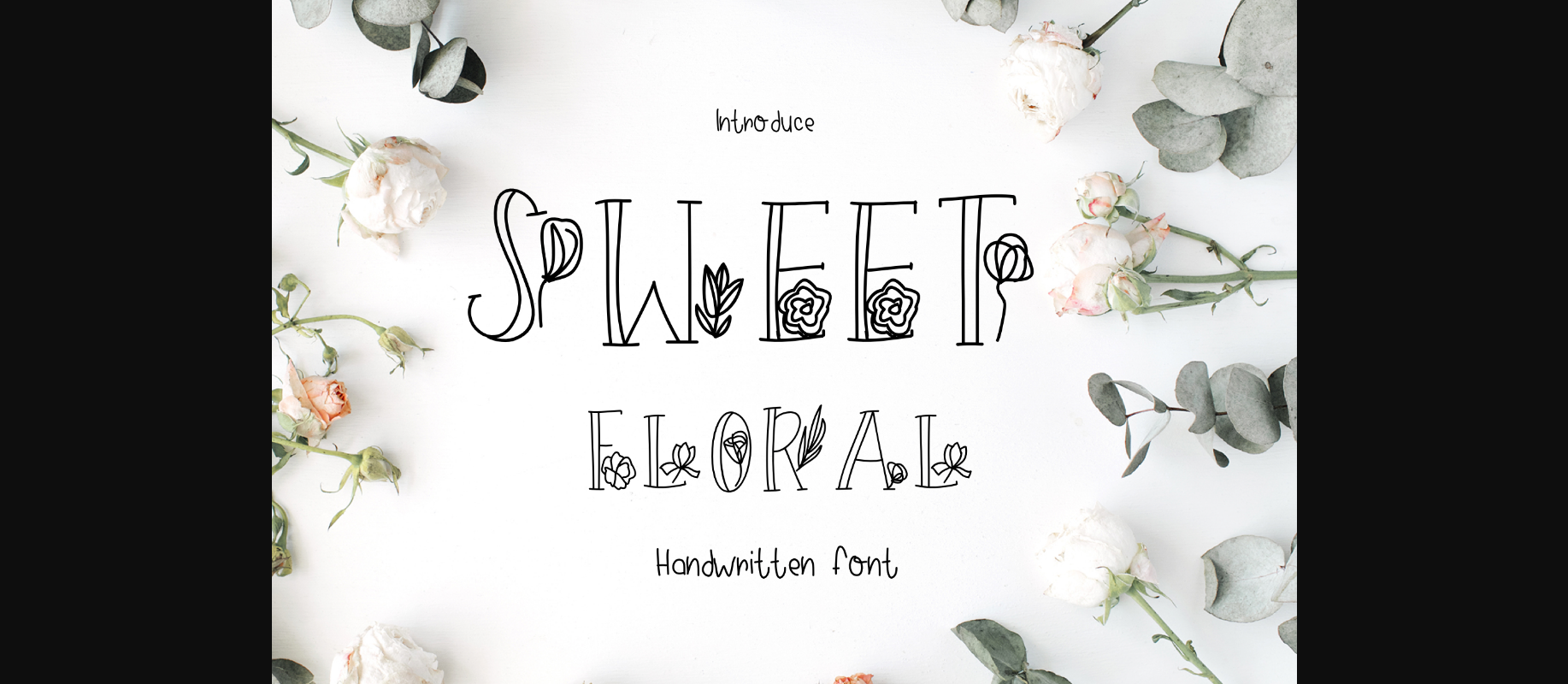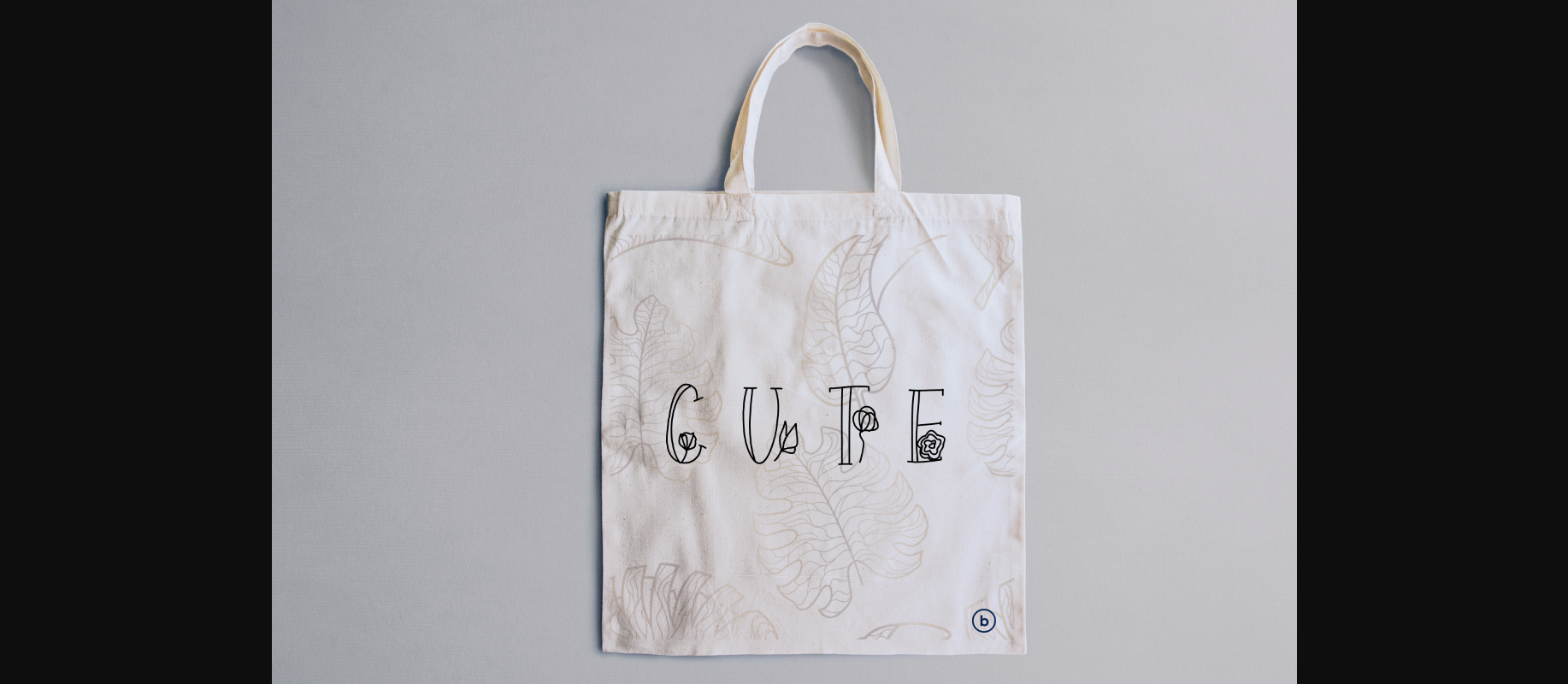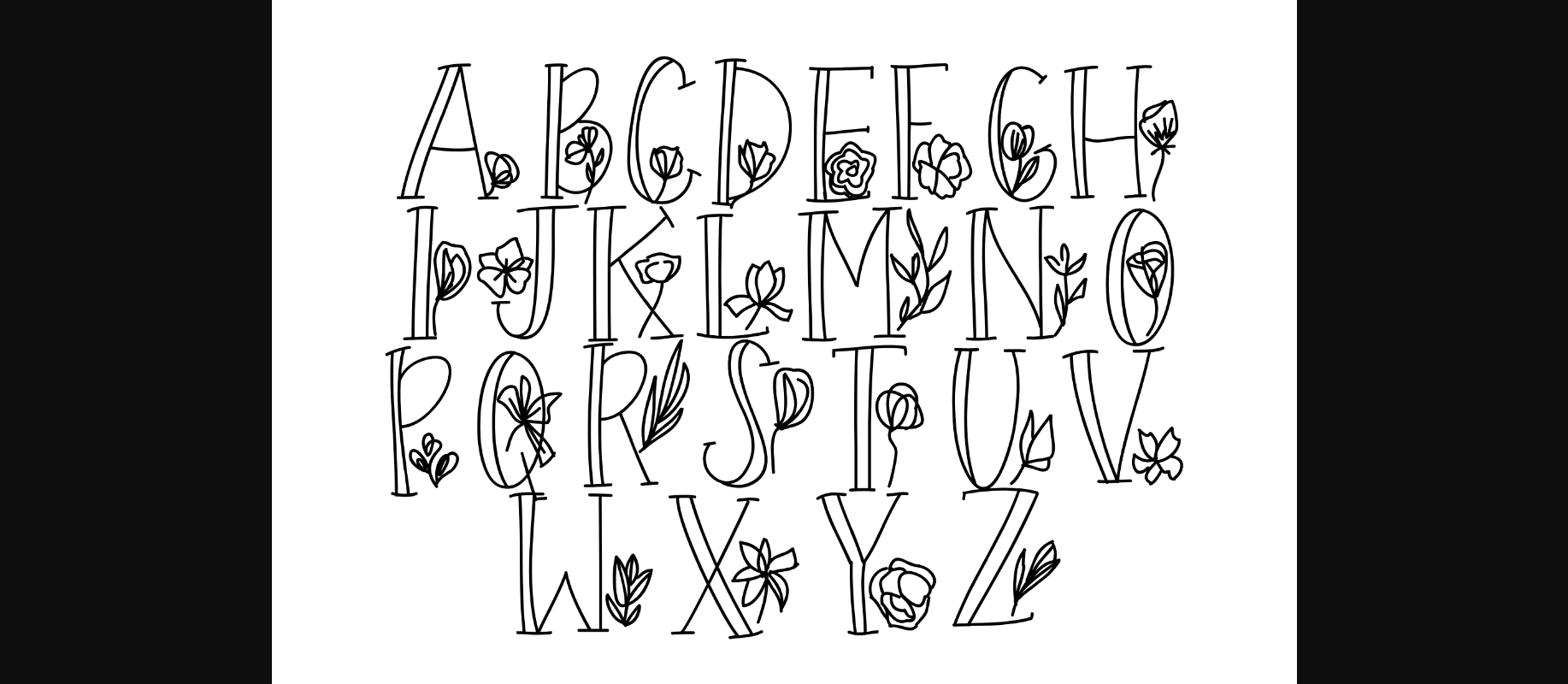
Sweet Floral Font
About Sweet Floral Font
Sweet Floral is a simple and delicate decorative font, featuring floral ornaments. Fall in love with its unique style and create gorgeous wedding invitations, birthday cards, logos, greeting cards, and more!